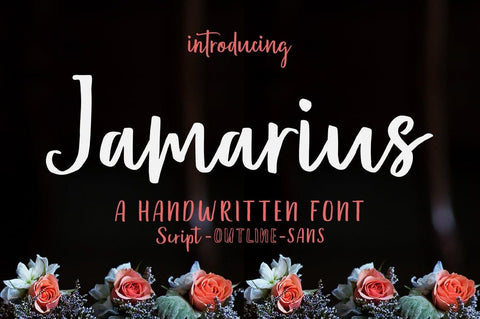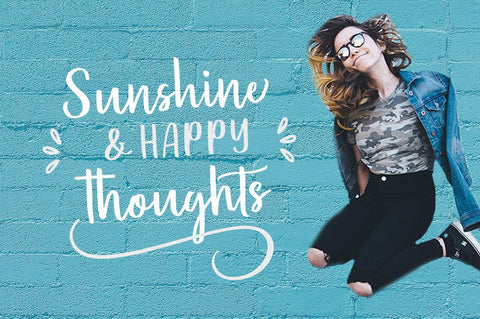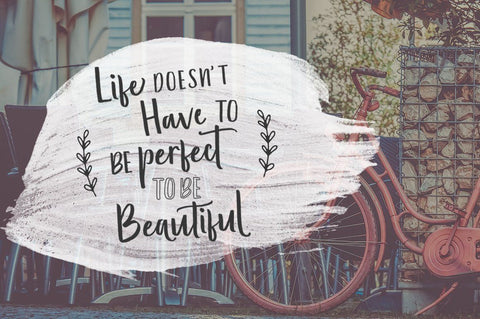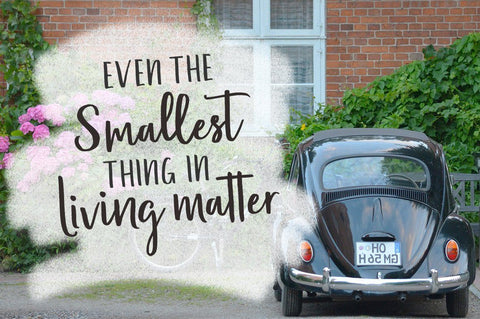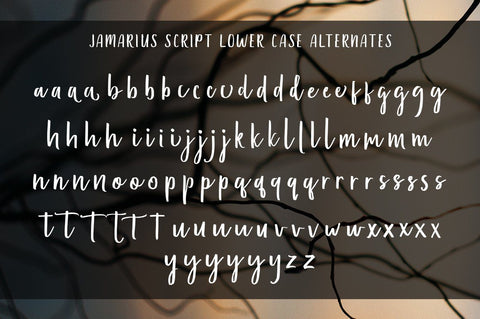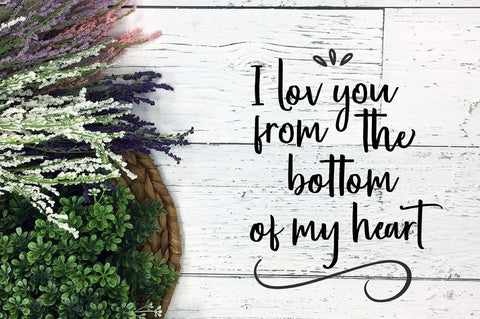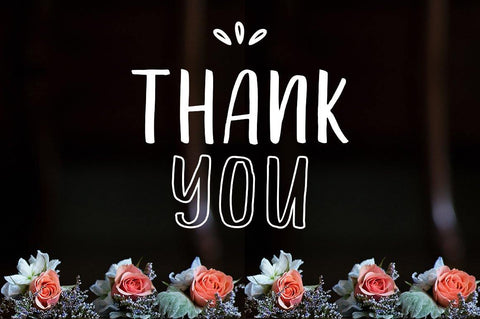
Jamarius Script - A Handwritten Font Duo
Jamarius Script - A Handwritten Font is a new modern script font with an irregular base line. Trendy and feminine style. Jamarius Script looks beautiful in wedding invitations, thank you cards, quotes, greeting cards, logos, business cards, and more. Perfect for use in ink or watercolors. Includes initial and terminal letters, alternatives and support for many languages.